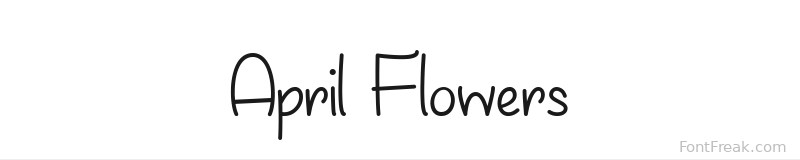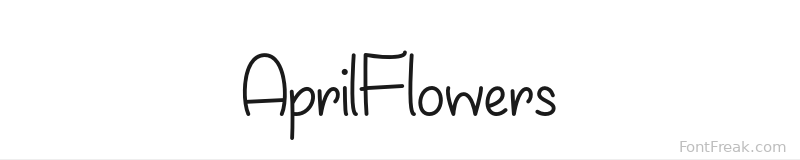
AprilFlowers
April Flowers
About AprilFlowers
AprilFlowers by Misti Hammers is a delightful handwritten font that captures the essence of whimsy and charm. This decorative typeface exhibits a playful character, characterized by its light stroke weight and fluid, organic lines. The letters flow seamlessly, evoking a sense of warmth and friendliness, making it an ideal choice for various creative projects. The spacing is thoughtfully designed to maintain readability while allowing the unique shapes of each letter to shine.
Ideal for a range of applications, the AprilFlowers font excels in creating visually appealing wedding invitations, where its elegant curves can add a personal touch. It's also perfect for designing cheerful greeting cards, playful logos, and eye-catching restaurant menus. Additionally, content creators can leverage this font for social media graphics, infusing their posts with a lively and approachable aesthetic. The versatility of AprilFlowers makes it particularly appealing to graphic designers, small business owners, and anyone looking to add a touch of creativity to their projects.
What sets the AprilFlowers font apart is its ability to blend artistic flair with functionality. The light-hearted design invites a sense of joy, making it suitable for both formal and informal contexts. The unique characteristics of this font provide an engaging alternative to traditional typefaces, ensuring that your message stands out in a crowded visual landscape. With its free license, users can easily access the AprilFlowers font free download, allowing for effortless incorporation into various design endeavors. Whether you're crafting a special occasion piece or enhancing branded materials, AprilFlowers offers a fresh, inviting style that resonates with audiences.